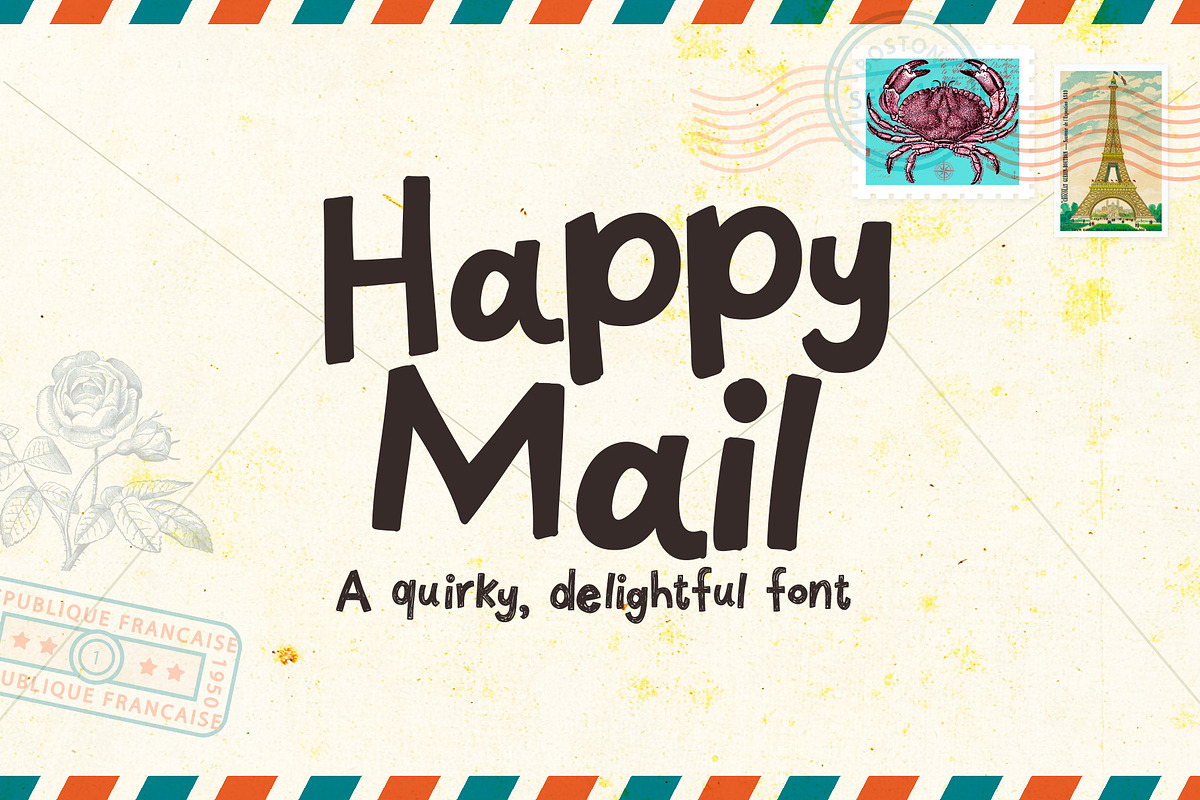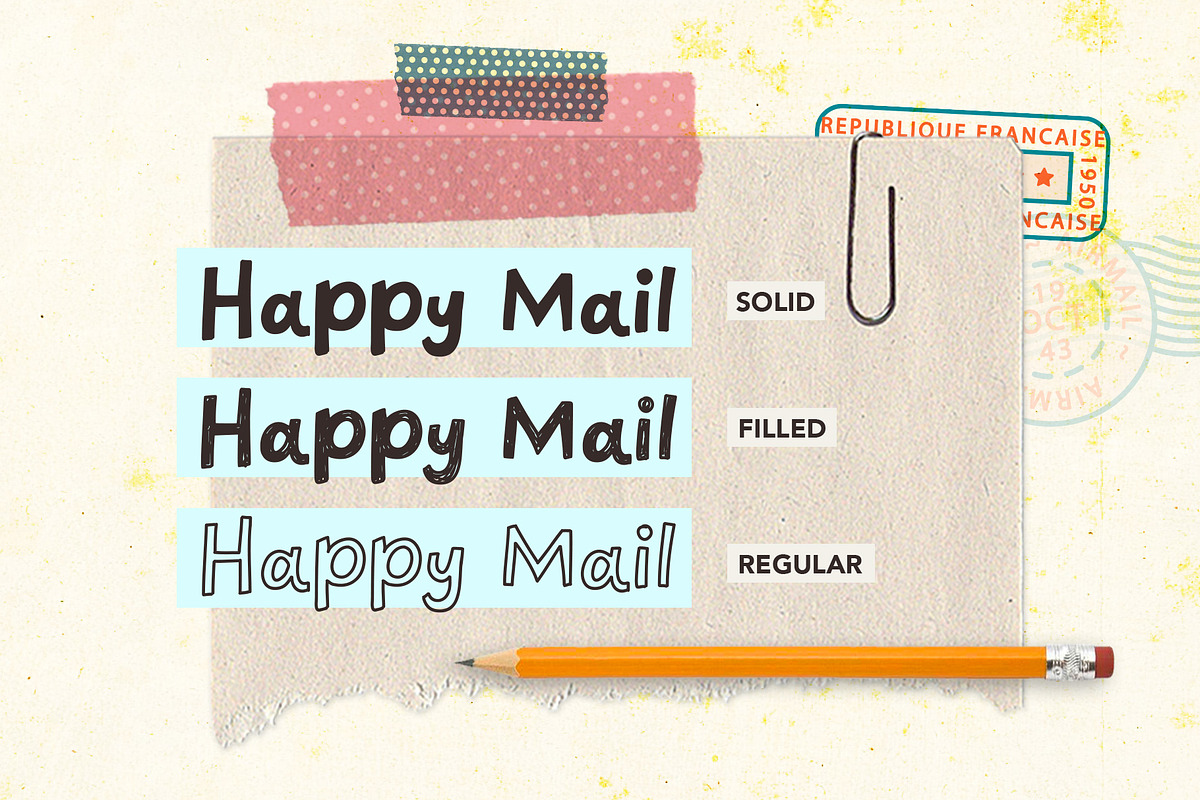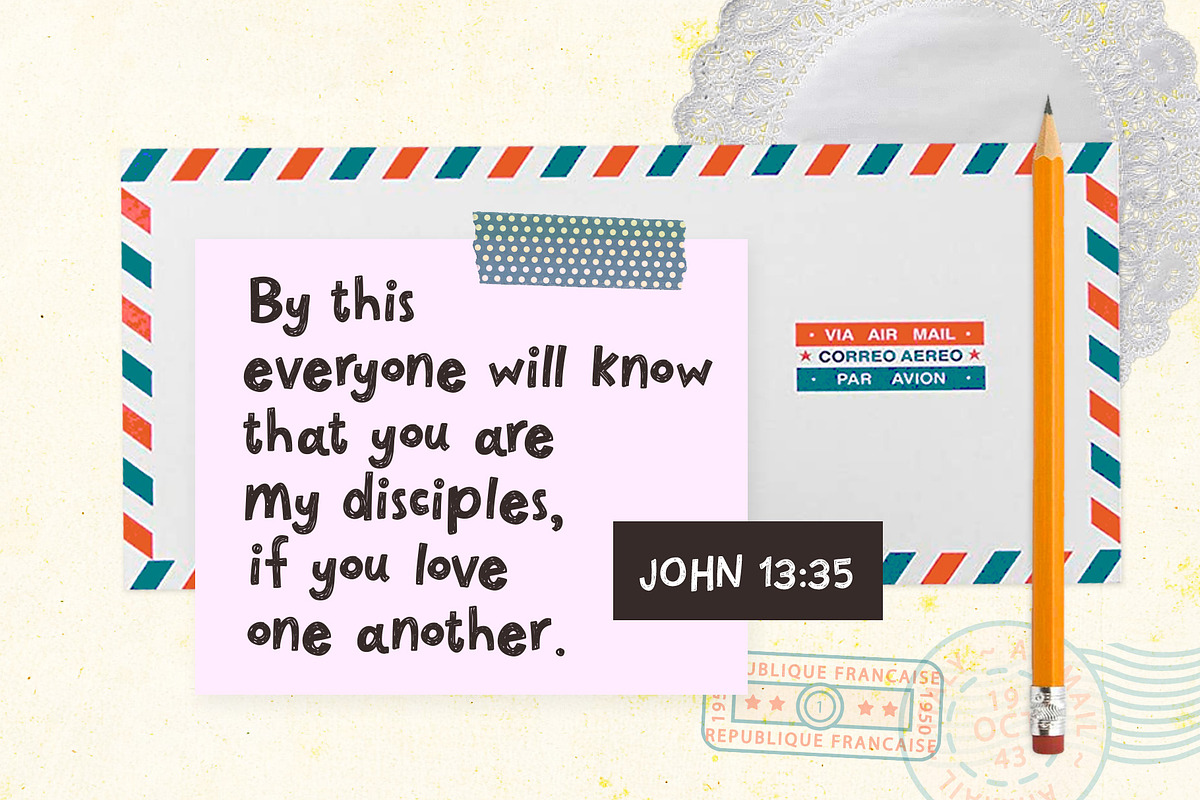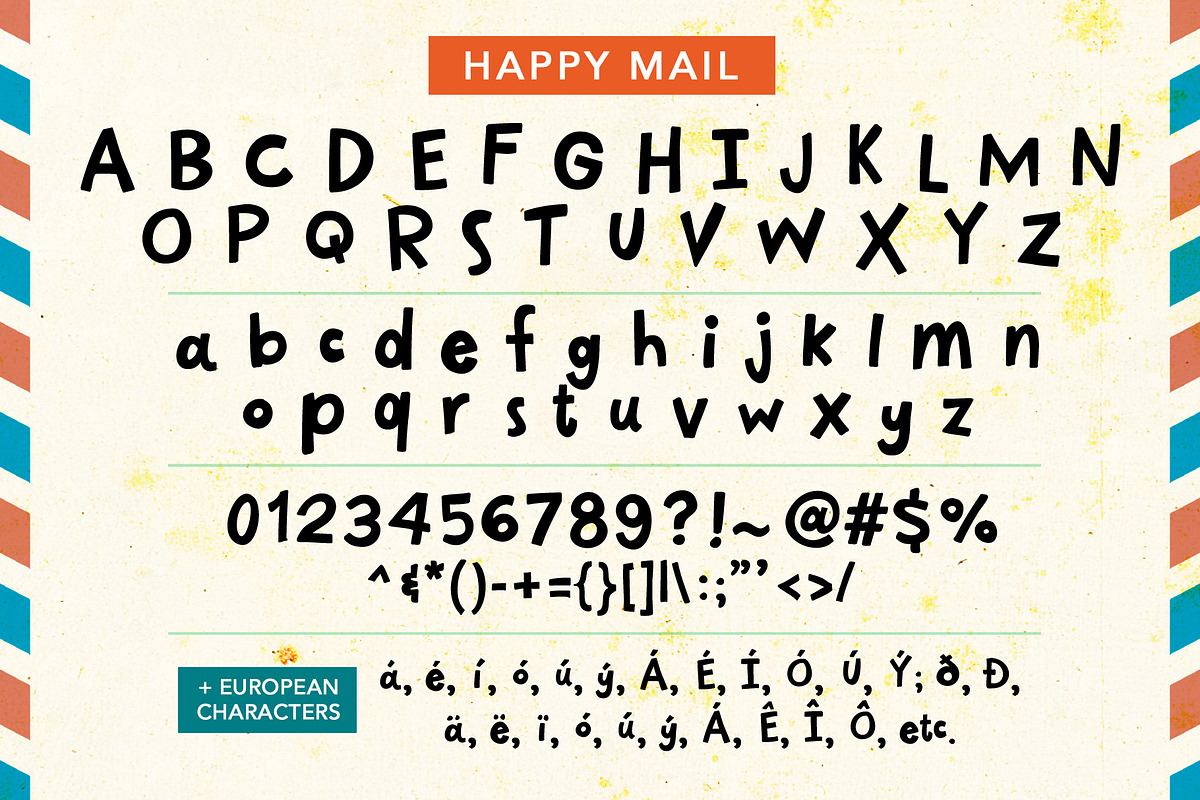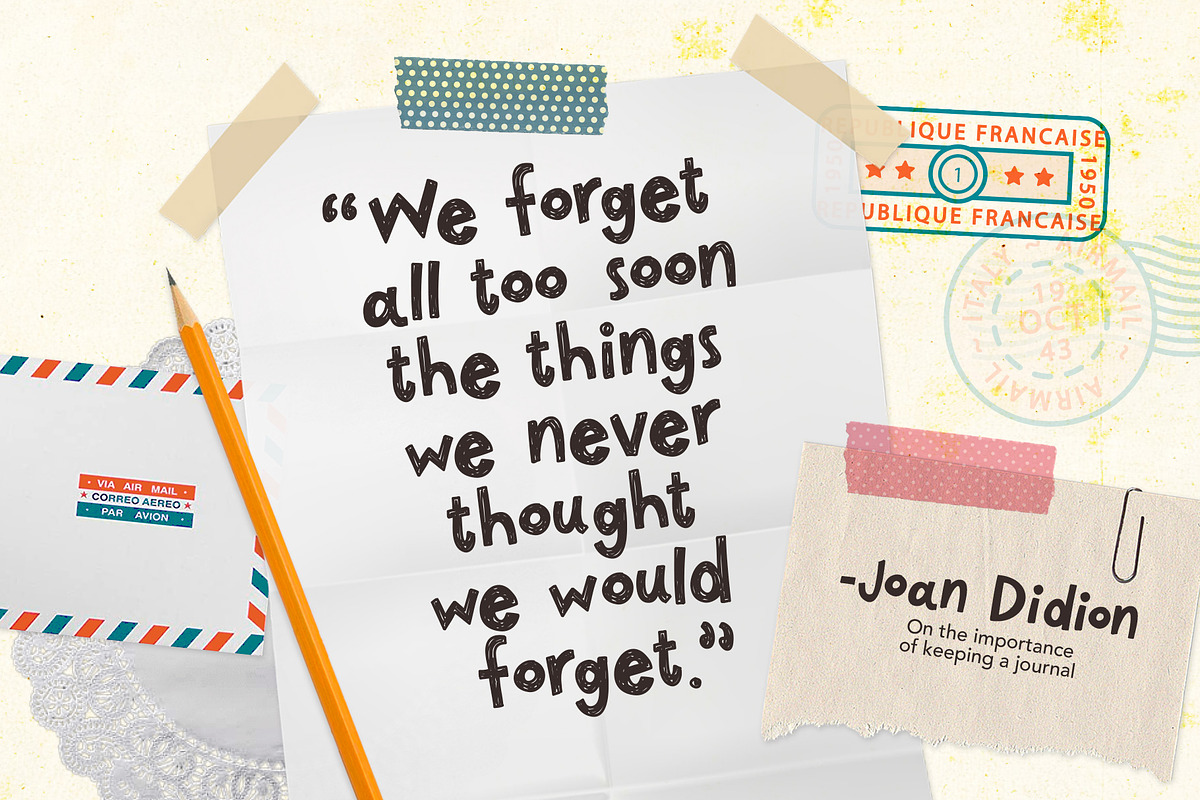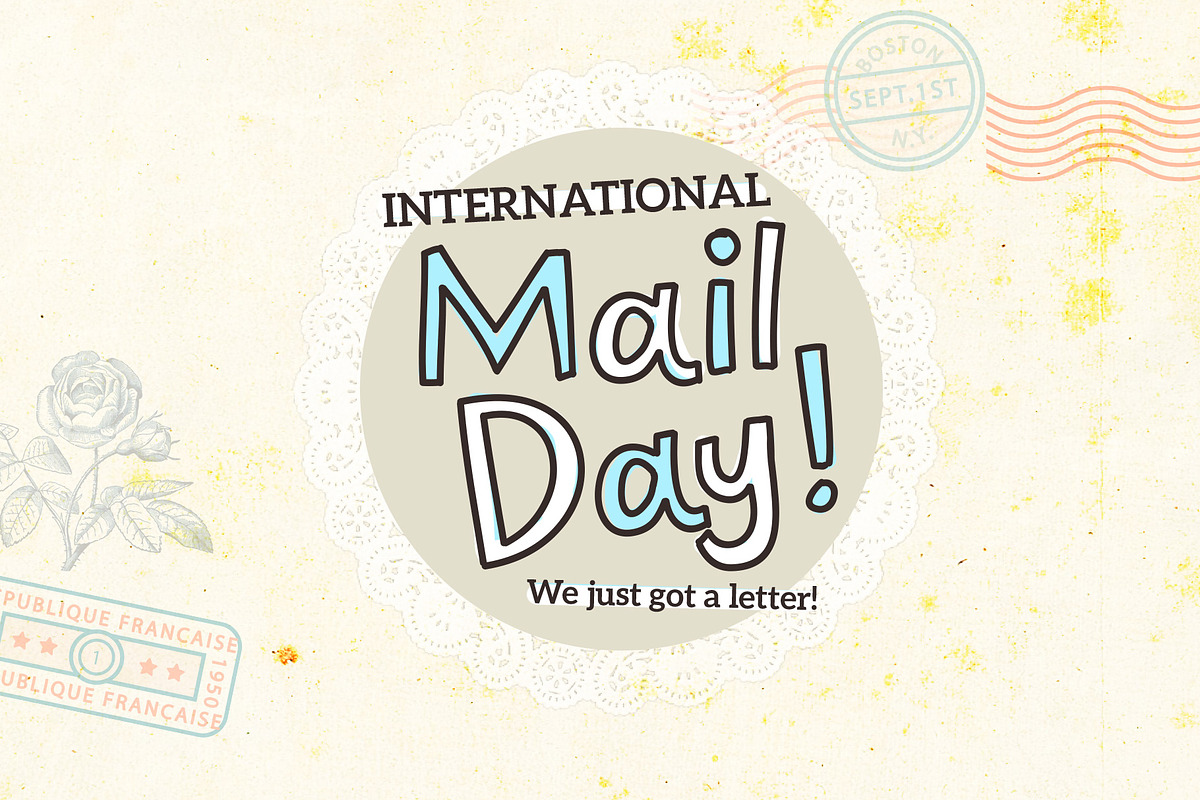
Happy Mail Font
A fun, quirky font that gives life to your everyday. Happy Mail is perfect for social media graphics, greeting cards, shirt designs, invitations, and whatever your project needs to give it an extra oomph and personality.
Comes in three styles:
- Solid
- Filled
- Regular (outline)
- All uppercase
- All lowercase
- Numerals and punctuation
- European language characters